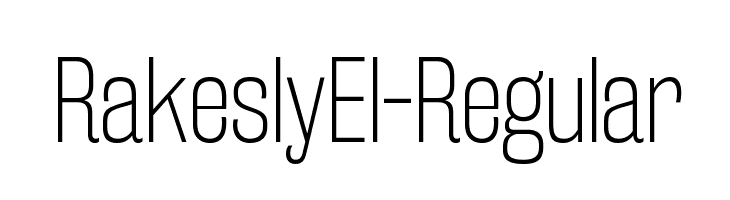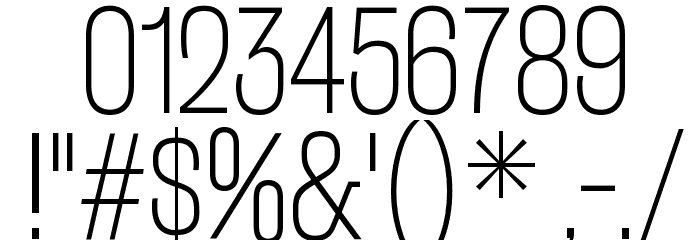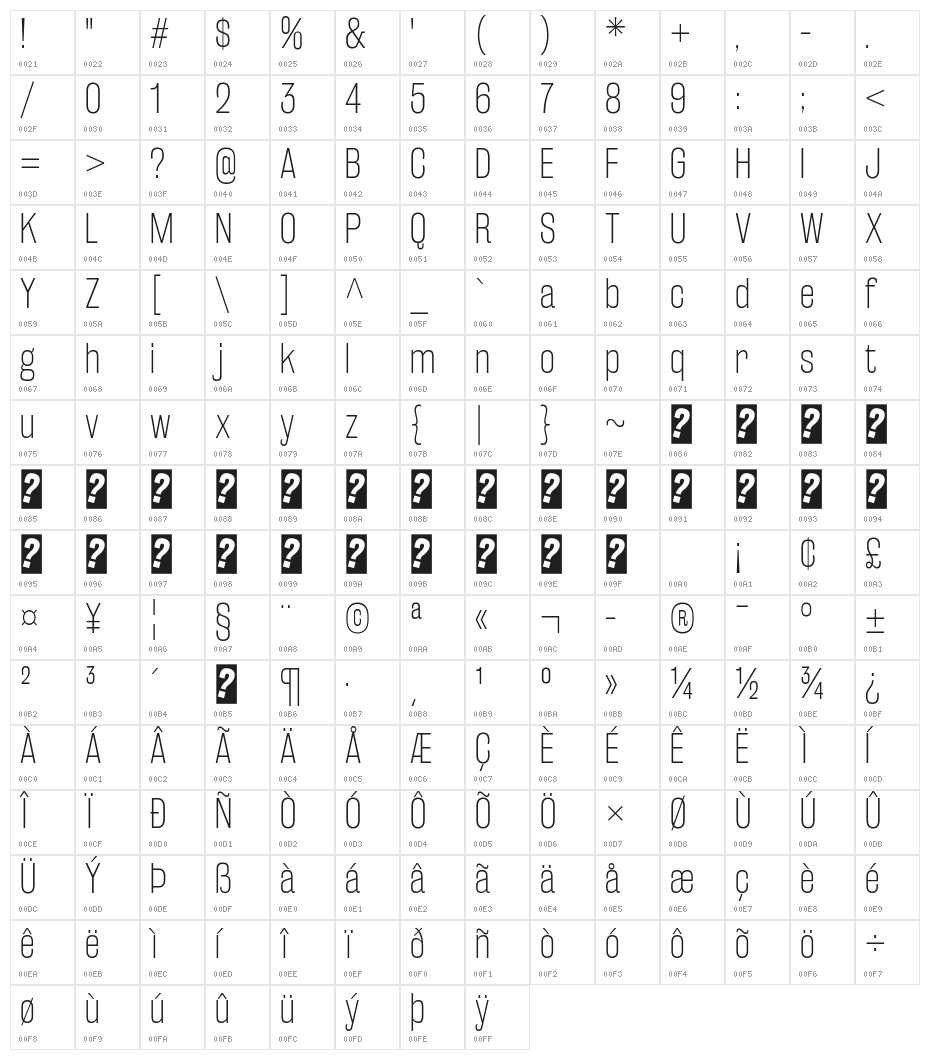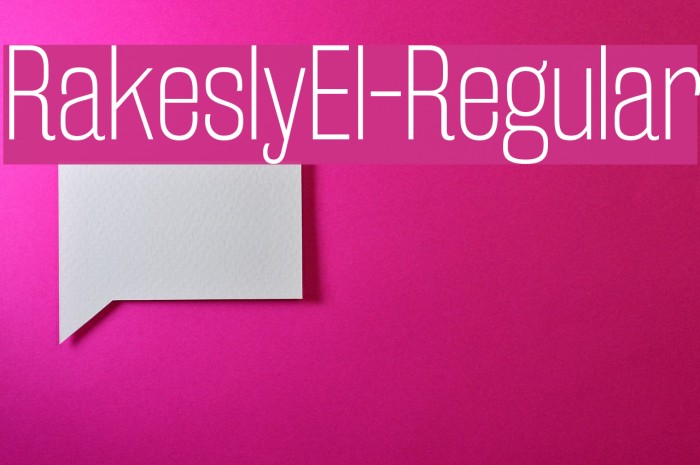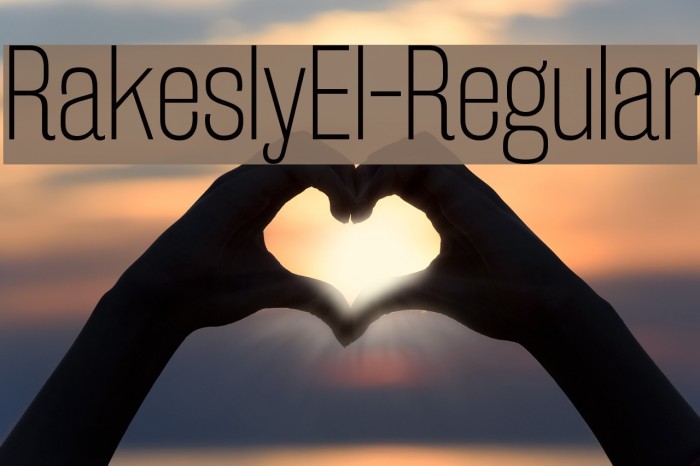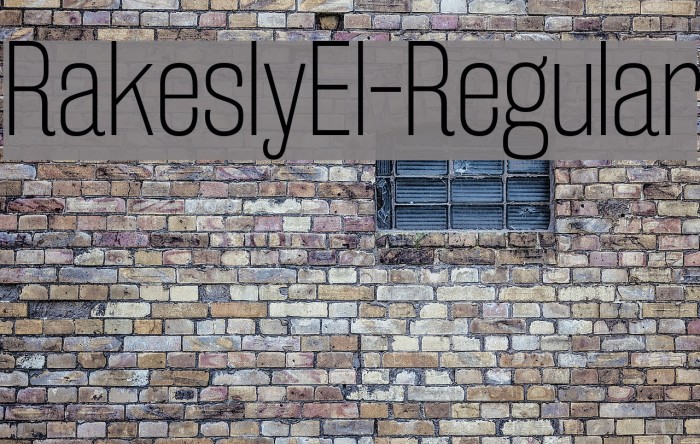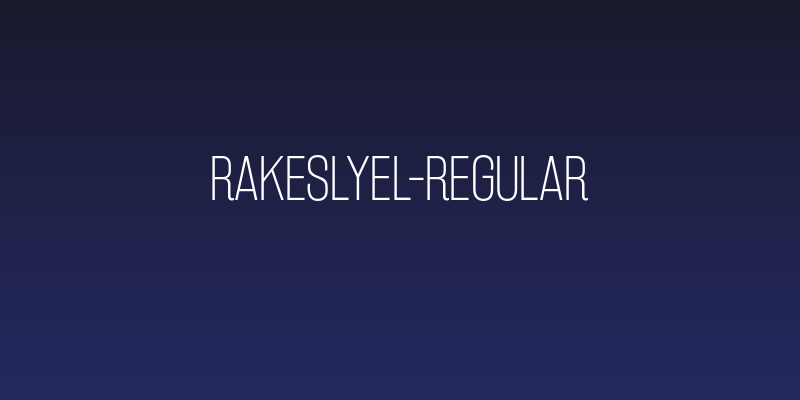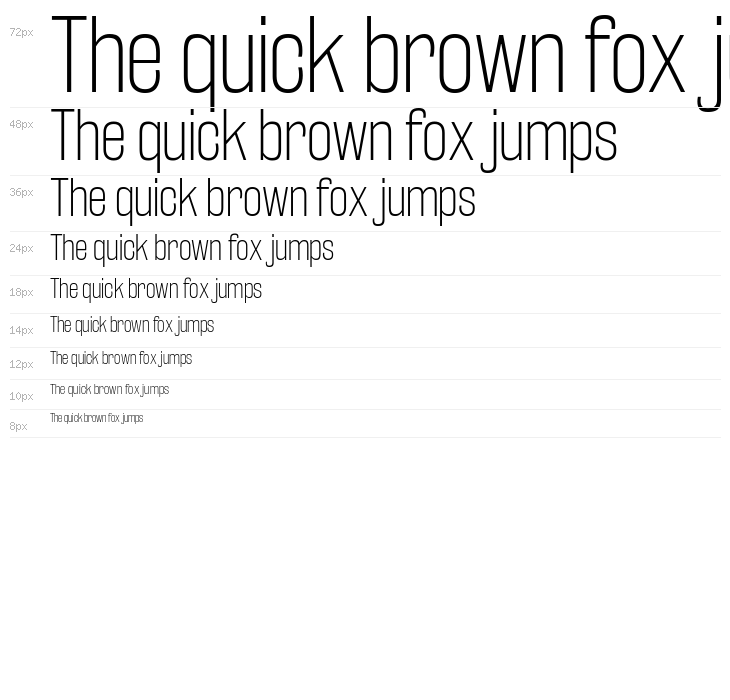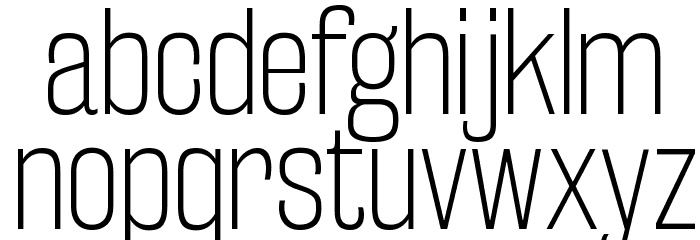
RakeslyEl-Regular Font
RakeslyEl-Regular Description
This font features a clean and modern sans-serif design with a focus on clarity and simplicity. The characters are tall and narrow, giving it an elegant and sophisticated appearance. The uniform stroke width across all characters provides a consistent and balanced look. The uppercase letters are slightly taller than the lowercase, maintaining a harmonious proportion. The numerals are clear and distinct, making them easily readable. Special characters are well-integrated, ensuring versatility in various design contexts. Overall, this font is ideal for projects that require a contemporary and professional aesthetic.
| Proposed Projects | Ideal for branding, editorial design, web design, and corporate materials. |